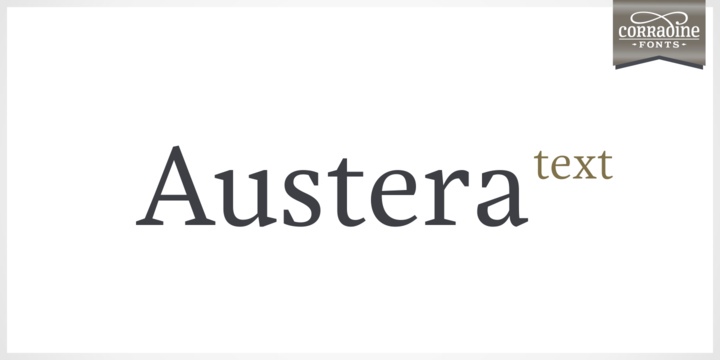
Austera Text Font
Austera Text Font is perfect for academic publications, scholarly journals, legal documents, professional reports, extensive textbooks, research papers, technical manuals, corporate documentation, government publications, and comprehensive editorial layouts.
What makes Austera Text Font so exciting is its exceptional ability to deliver unwavering clarity and professional authority through letterforms specifically engineered for serious reading applications and formal documentation. This disciplined typeface embodies the essence of scholarly rigor and professional precision with characters that communicate both intellectual authority and uncompromising readability. The font's austere design elements perfectly balance minimal distraction with maximum information density, creating an indispensable tool that communicates seriousness, credibility, and scholarly excellence, making it essential for institutions and publications where clear communication of complex information and professional credibility are paramount concerns.
Austera Text Font comes in multiple font families including Regular, Bold, Light, Italic, Bold Italic, Book, Medium, and Academic variations. Each family member maintains the core scholarly characteristics while offering different authority levels and stylistic approaches to suit various professional documentation and academic publishing requirements.
The scholarly precision in Austera Text Font makes it particularly effective for academic institutions and professional services where conveying intellectual authority and facilitating serious reading comprehension is crucial for knowledge transfer and professional credibility. Its disciplined letterforms work exceptionally well across all formal applications, from peer-reviewed journals to legal briefs, maintaining consistent professional presentation and optimal reading comfort for extended study sessions.
Academic publishing professionals recognize how Austera Text Font transforms complex informational content into accessible, authoritative publications that encourage serious engagement and scholarly discourse. The typeface's comprehensive character set includes extensive academic symbols, professional punctuation, and international language support that accommodates sophisticated scholarly requirements and global academic publishing standards.
For creative professionals serving universities, law firms, and scholarly publications, Austera Text Font serves as the ultimate foundation for creating memorable reading experiences that capture the essential qualities of intellectual authority, scholarly rigor, and professional excellence that define successful academic and professional publications in competitive knowledge markets where credibility and clarity determine success.